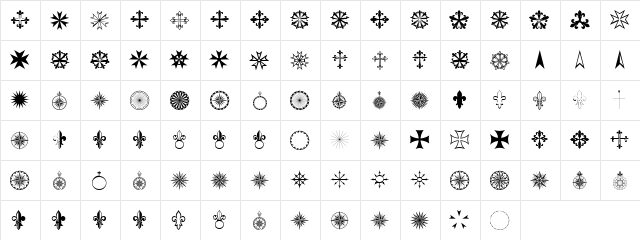
PR Compass Rose Normal
Design Context for PR Compass Rose Typeface
PR Compass Rose is a composed and adaptable typeface that performs quietly and consistently across a wide range of design contexts.
Pro Tip: Use PR Compass Rose in both headline and body roles to test its range before committing to a single application.